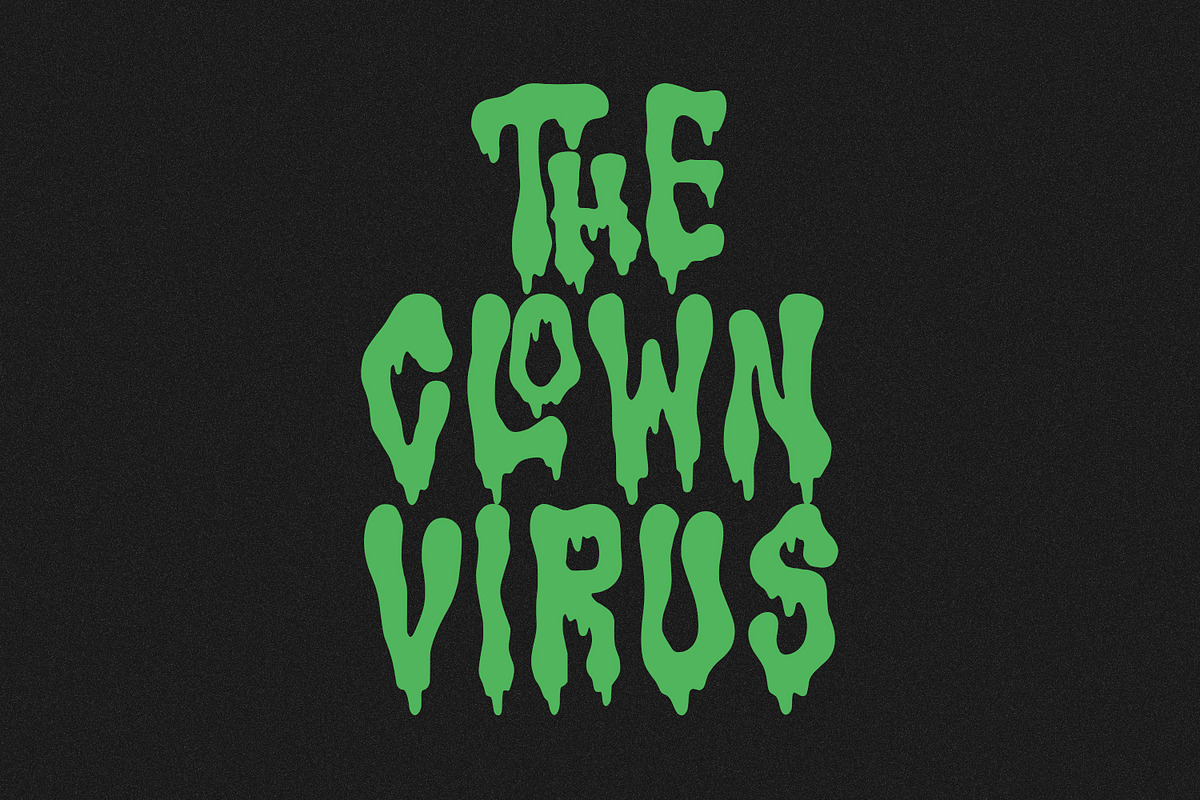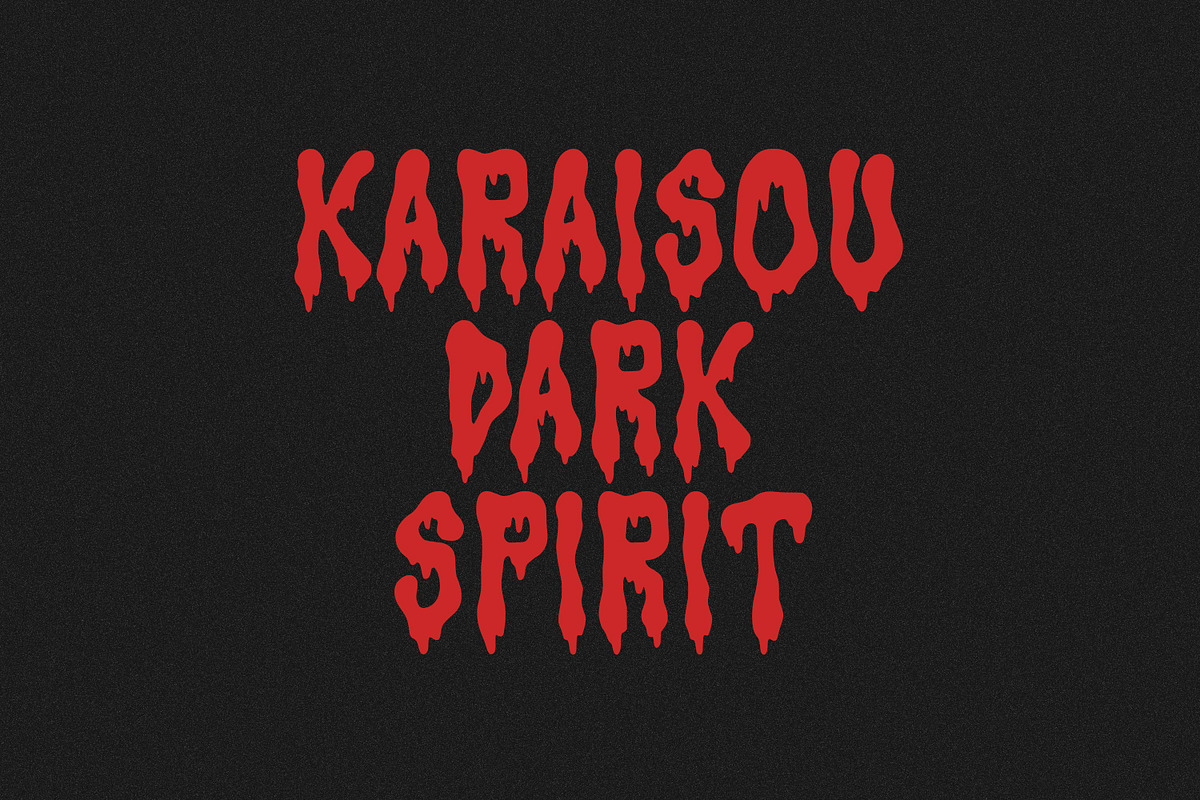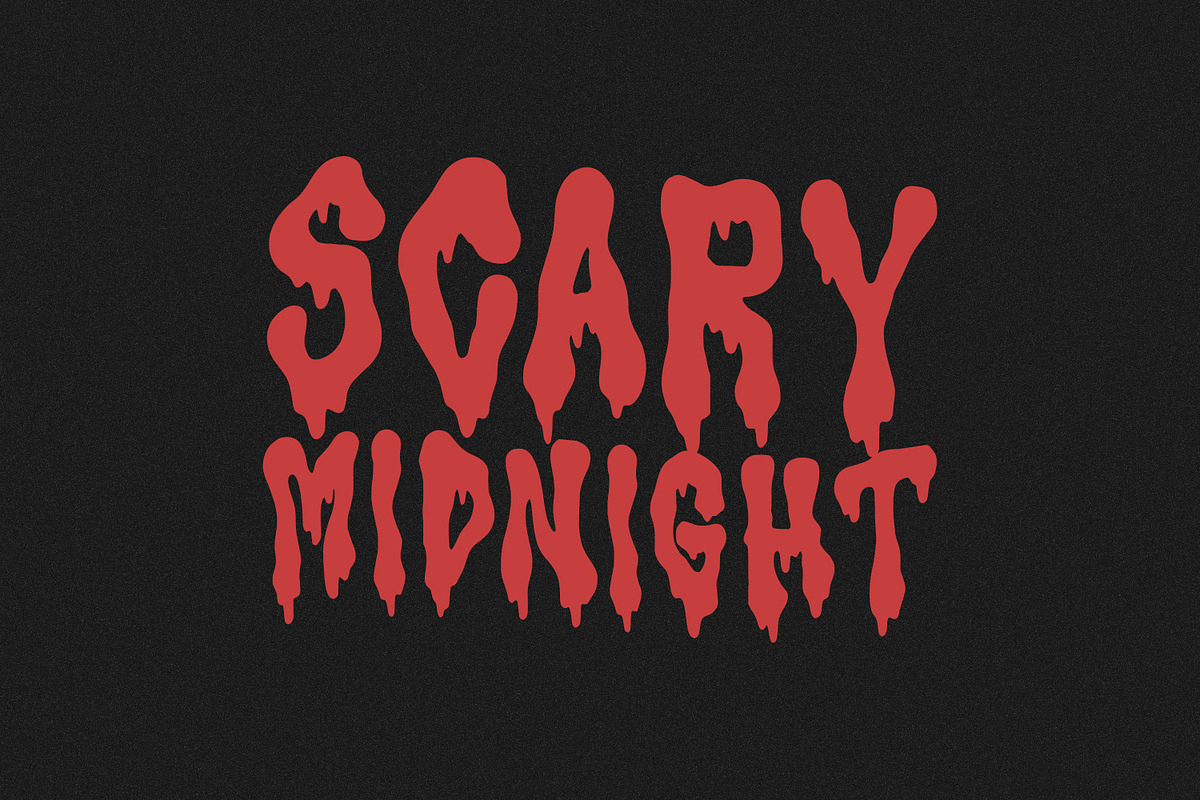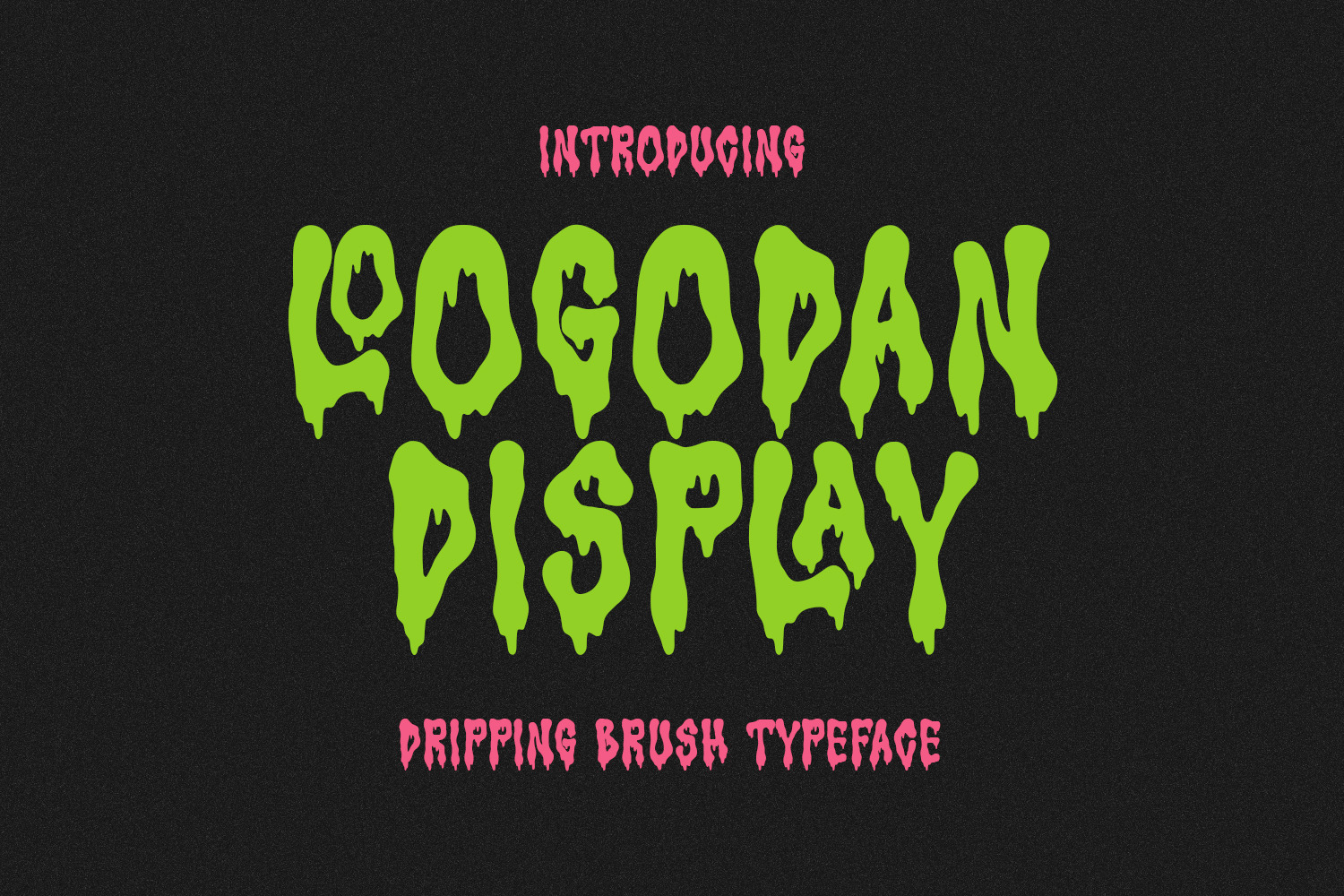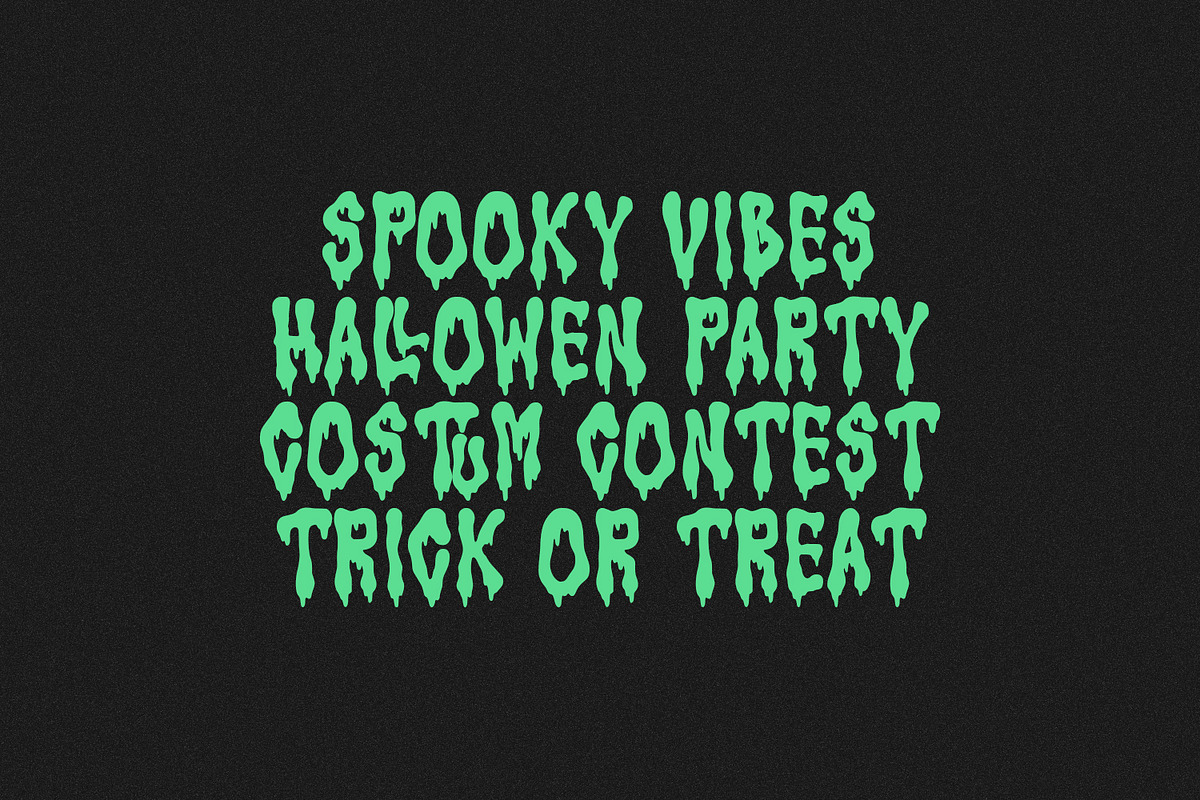
Loogodan Dripping Brush Typeface
Loogodan Display is an attention-grabbing, all-caps typeface with a dramatic, dripping brush style, perfect for creating a spooky, grungy, or playful horror aesthetic. Its bold, hand-drawn look features heavy, melted, or slime-like drips extending from the characters, making it ideal for impactful headlines, event, logos, and product, especially for themes related to Halloween, horror movies, monster themes, or edgy street fun art.
The font includes the full uppercase alphabet, numbers, punctuation, and various ligature style, offering versatility for creative projects. Whether you're designing for a "Scary Midnight" event, "Spooky Vibes Halloween Party," or a quirky brand, the Loogodan Display typeface delivers a visceral, high-impact visual statement.
- Ligature Style